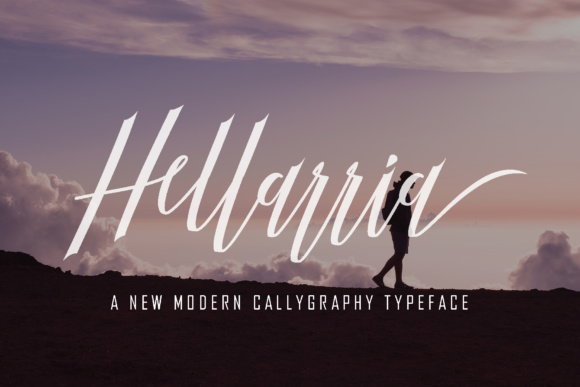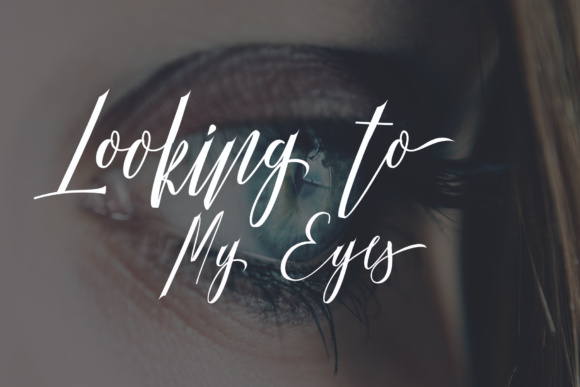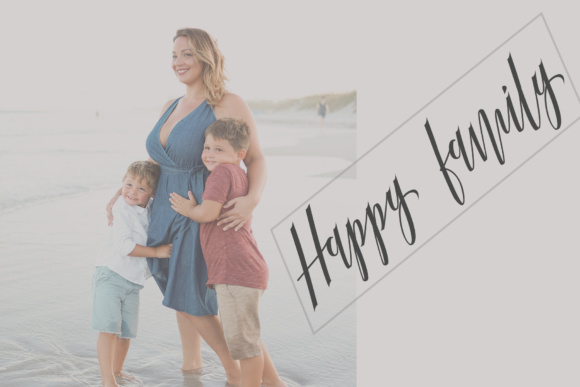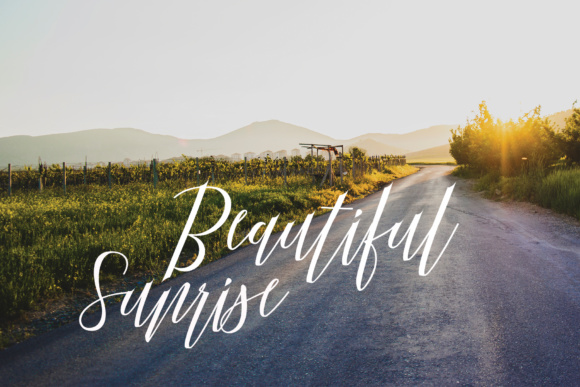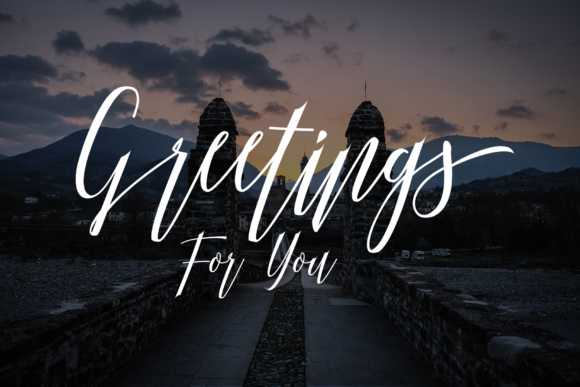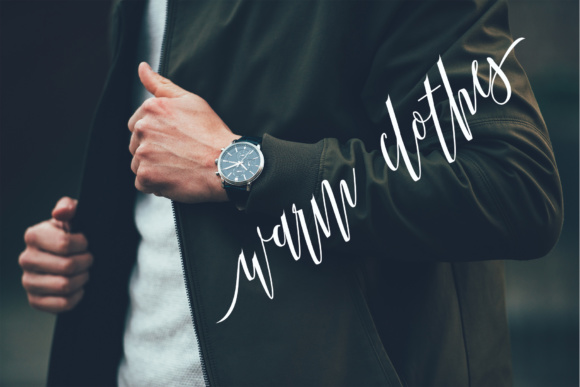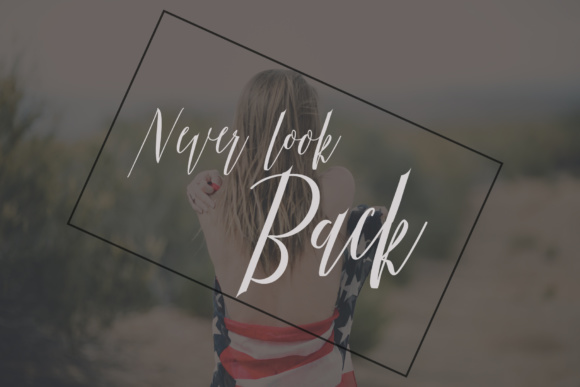
HomeScript FontsHellarria Script Font Script Fonts Hellarria Script Font FacebookXPinterestWhatsApp Hellarria Script Font Poster 2 Hellarria Script Font Poster 3 Hellarria Script Font Poster 4 Hellarria Script Font Poster 5 Hellarria Script Font Poster 6 Hellarria Script Font Poster 7 About Hellarria Script Font The Hellarria is a modern script font. It was handwritten and has unique, modern forms of calligraphy. DOWNLOAD NOW People also explored Honey Punch Script Font Stack Font Morning Simba Script Font Sherbet Shadow Font Shimmer Gelantis Font Chocolicious Font Summer is Gone Font Simple Love 266 0 TagsHellarria Script Font Previous articlePink Script FontNext articleDenmahis Script Font LEAVE A REPLY Cancel reply Comment: Please enter your comment! Name:* Please enter your name here Email:* You have entered an incorrect email address! Please enter your email address here Website: Save my name, email, and website in this browser for the next time I comment. Personal Use Free Histeria Bites Personal Use Free Read more about this font Masha Song Personal Use Free Read more about this font Sweety Blue Personal Use Free Read more about this font Hanifah Personal Use Free Read more about this font BLOG Best Fonts for YouTube Videos: Make Your Thumbnails Stand Out Best Fonts for YouTube Videos: Make Your Thumbnails Stand Out Choosing the right font can make a massive difference in how your YouTube videos perform.... Modern Sans-Serif Fonts That Brands Love in 2025 Where to Buy American Fonts Online in 2024 Free vs Paid Fonts: Why Investing in Premium Fonts Is Worth It